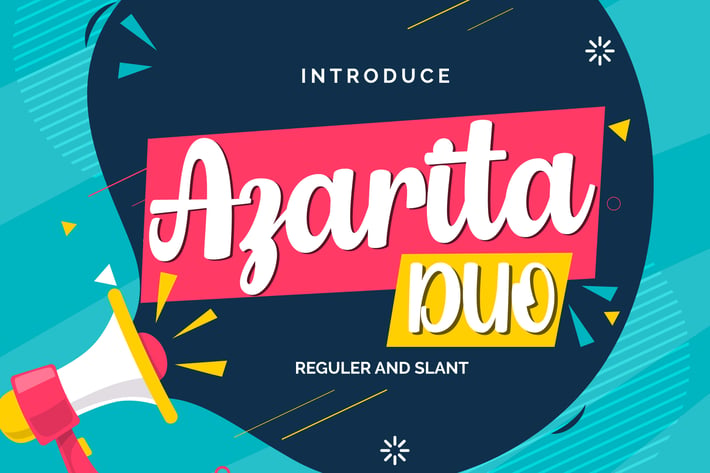
Azarita Duo | Regular & Slant Font
Azarita Duo | Regular & Slant Font with a calligraphy style, So beautiful on invitation like greeting cards, branding materials, business cards, quotes, posters, and more!